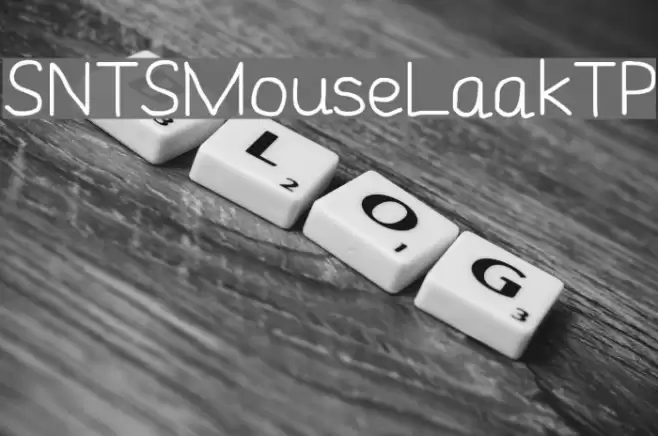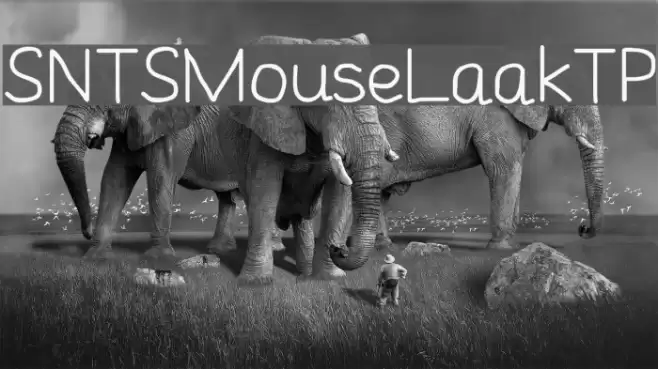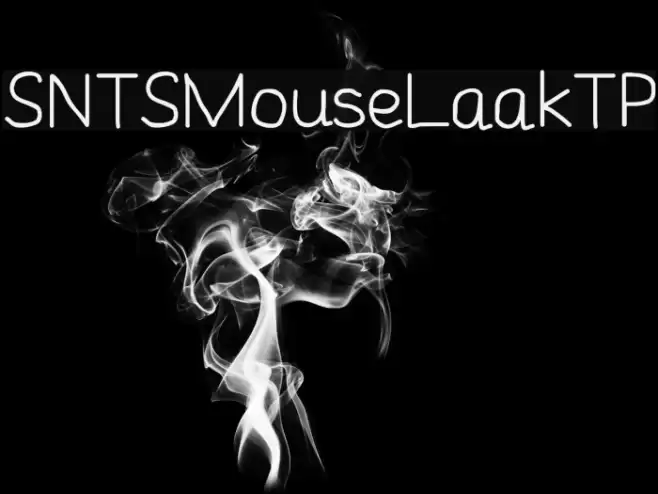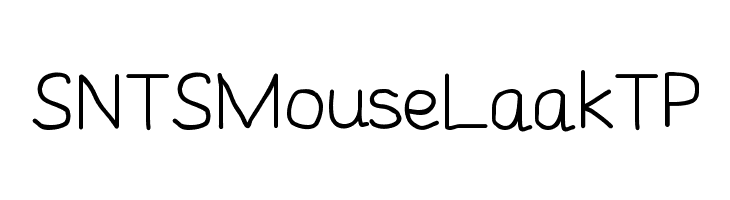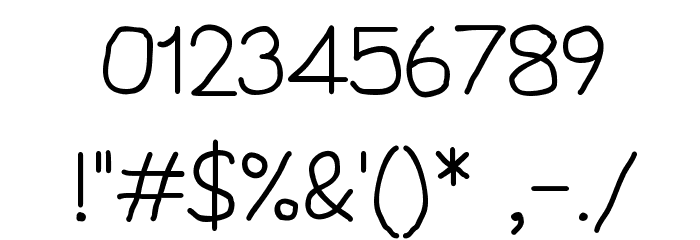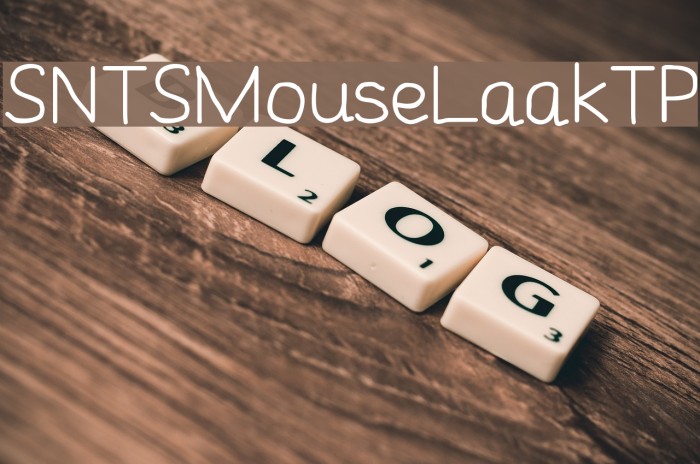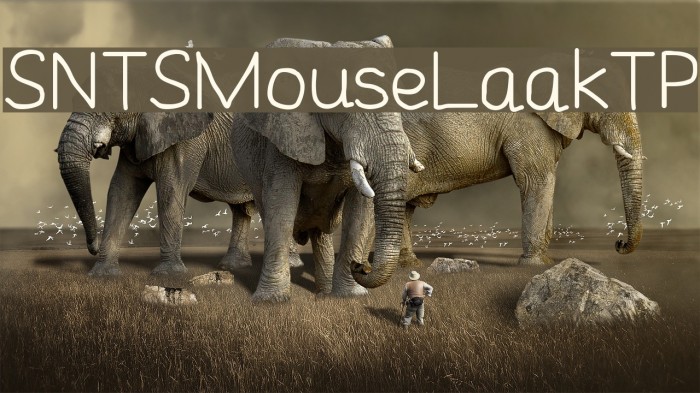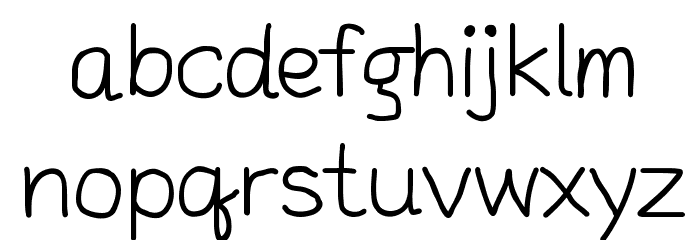
SNTSMouseLaakTP Font
SNTSMouseLaakTP Description
This playful and informal font features a handwritten style with a casual and friendly appearance. The letters are slightly rounded with a consistent stroke width, giving it a uniform and approachable look. The uppercase and lowercase letters maintain a cohesive style, while the numerals and special characters blend seamlessly with the overall design. This font is ideal for projects that require a personal touch, such as greeting cards, invitations, or children's books. Its legibility and charm make it suitable for both digital and print media.
A playful, handwritten font with a casual and friendly style from Handwritten fonts.
- Proposed Projects: Ideal for greeting cards, invitations, children's books, and informal branding.
- Overall Style: Casual
- Use Case: Headlines, Informal text, Invitations